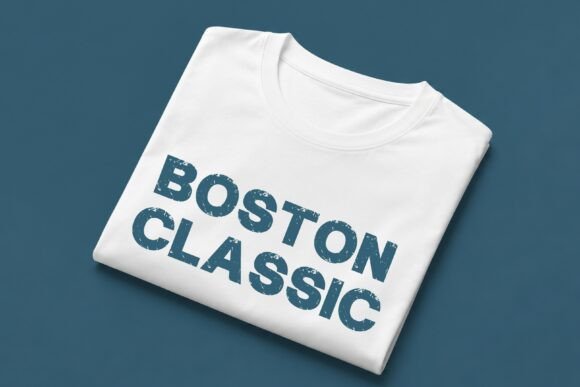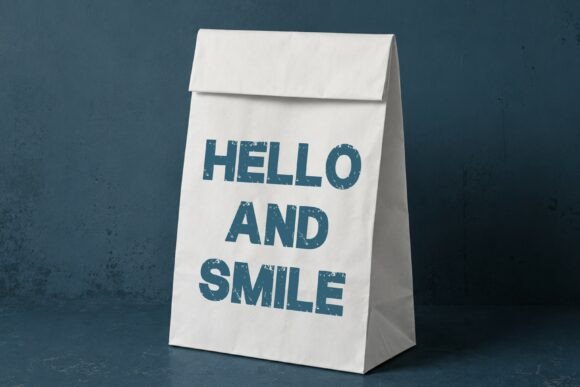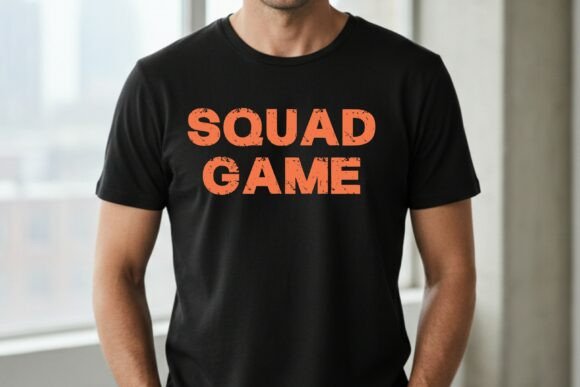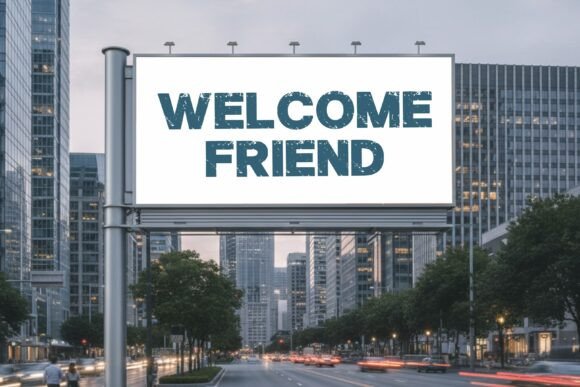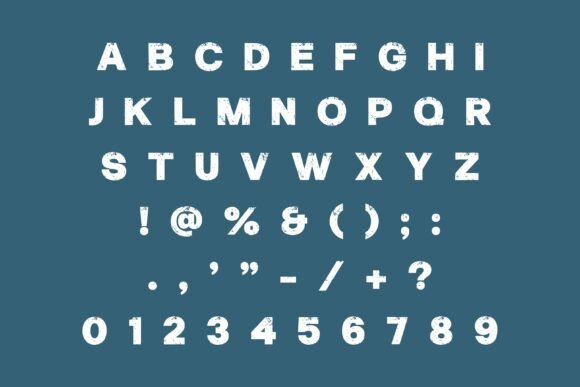
Get Ready to Unleash Your Inner Rebel: Introducing Black Brush Font
Remember the feeling of rummaging through a thrift store, stumbling upon a vintage t-shirt with a bold, distressed logo that screams attitude? That’s the kind of creative moment that sparked the design of the Black Brush Font. This bold grunge display font is all about embracing the rebellious spirit of the past, with a strong vintage personality and distressed texture details that demand attention.
Whether you’re a designer looking to add some edge to your branding, posters, or social media graphics, the Black Brush Font is the perfect tool for the job. Its rugged texture and thick, bold lettering create a powerful visual impact that’s both eye-catching and readable. With the Black Brush Font, you’ll be able to tap into the authentic retro feel that’s perfect for urban-style projects, from album covers to packaging designs.
Key Features of Black Brush Font
- Unique Characteristics: Black Brush Font features a distinctive, hand-drawn design with subtle brush strokes, giving it a unique and artistic feel that sets it apart from other sans-serif fonts.
- Kerning and Ligatures: Black Brush Font includes advanced kerning and ligature pairs, ensuring smooth and even spacing between characters, even in complex text settings.
Designer Review: Black Brush Font
When I first laid eyes on the Black Brush Font, I was immediately drawn to its edgy, hand-drawn aesthetic ✨. The font’s bold lines and expressive strokes evoke a sense of raw, artistic energy that’s perfect for any design project that needs a bit of attitude.
The font’s versatility is another major plus ✨. It’s suitable for a wide range of applications, from branding and advertising to editorial and digital design. Whether you’re working on a futuristic sci-fi project or a gritty urban landscape, Black Brush Font is up to the task.
Here are some of the font’s standout features:
- Expressive, hand-drawn style ✨
- Perfect for branding, advertising, editorial, and digital design
- Highly versatile and adaptable
- Works well in both digital and print applications
That being said, there are a few limitations to consider ⚠️:
- May not be suitable for projects that require a more subtle, minimalist look
- Can be challenging to read at very small sizes
- May not be as legible as other fonts in certain languages or character sets
Overall, I’m thoroughly impressed with the Black Brush Font. Its unique style and versatility make it a valuable addition to any designer’s toolkit. Just be mindful of the potential limitations, and you’ll be good to go!
Getting the Most Out of Black Brush Font
Black Brush Font is ideal for creating bold, eye-catching headings and titles. To get the most out of this font, use it sparingly and in conjunction with other fonts to create visual interest. You can also experiment with different font sizes and styles to achieve the desired effect.